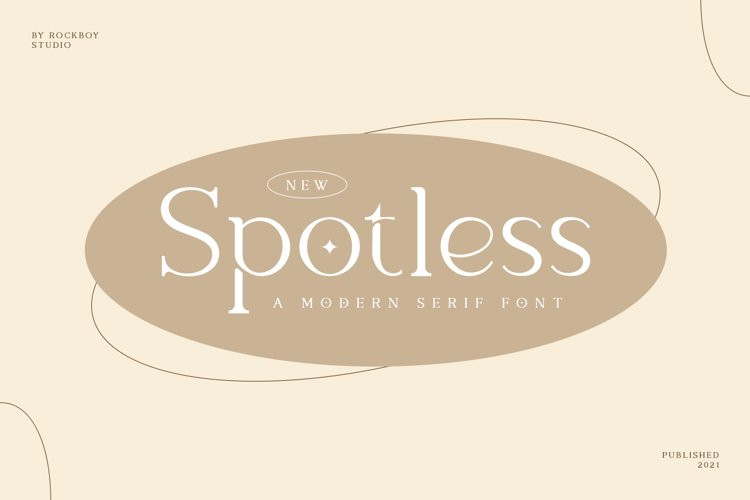
Spotless Font
Spotless is an elegant, thin lettered and distinct serif font. Suitable to a wide variety of designs due to its neat and clean style, this font has the potential to become your favorite go-to font, no matter the occasion! This font is PUA encoded which means you can access all of the glyphs and swashes with ease!